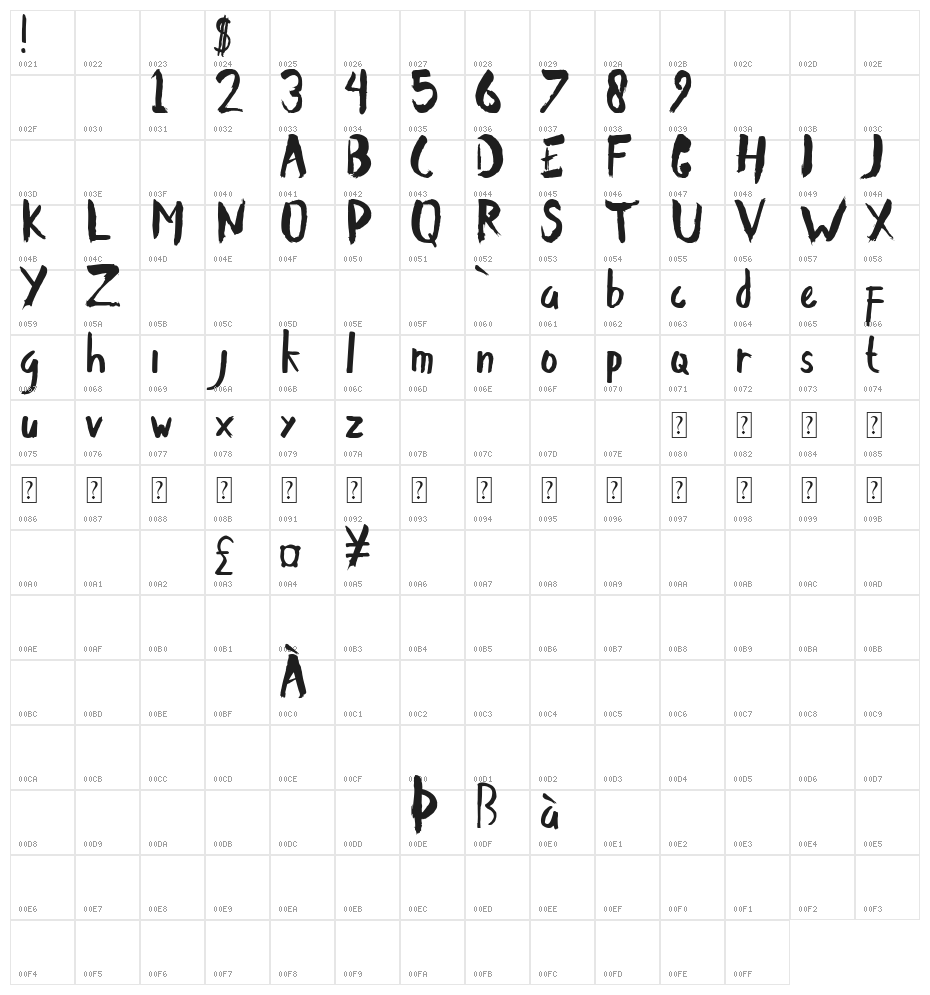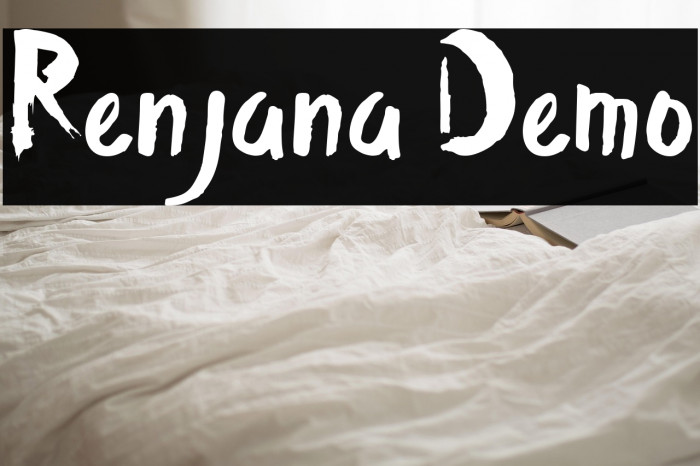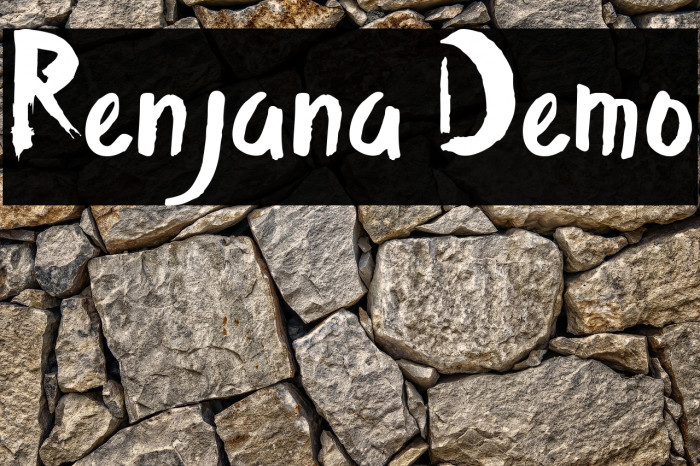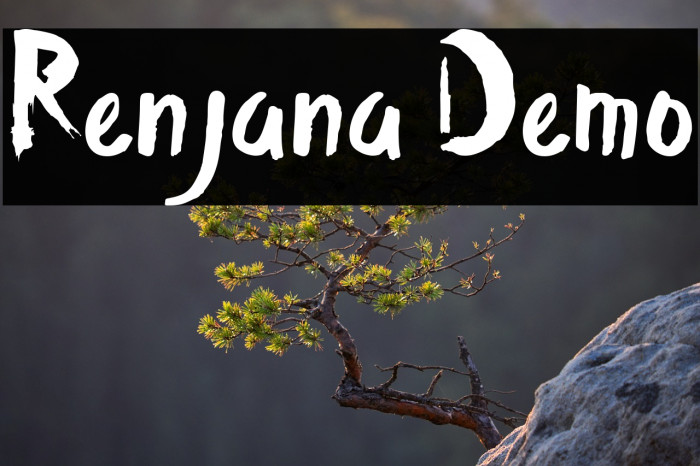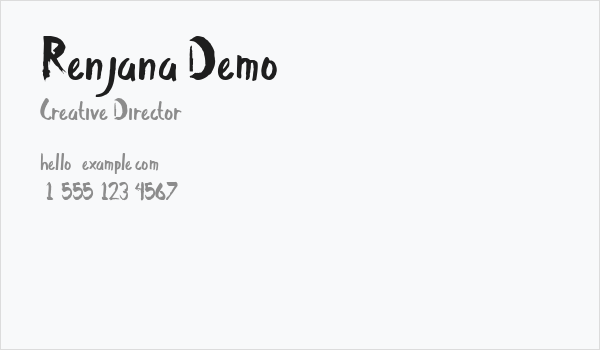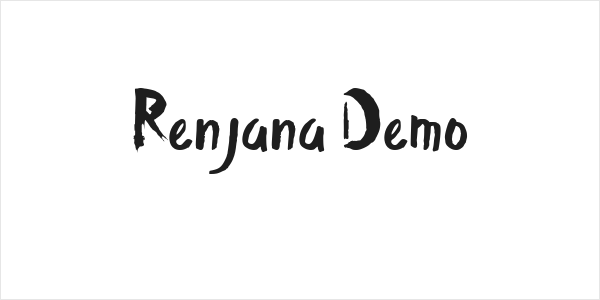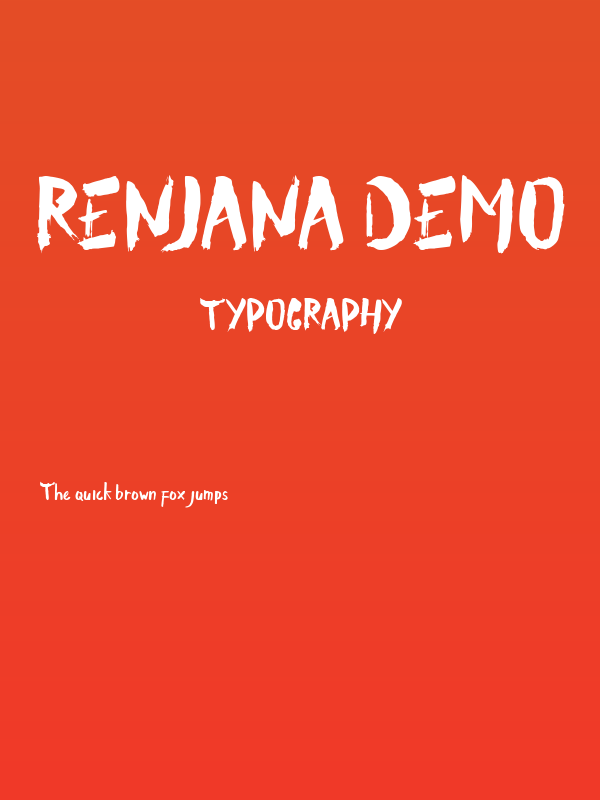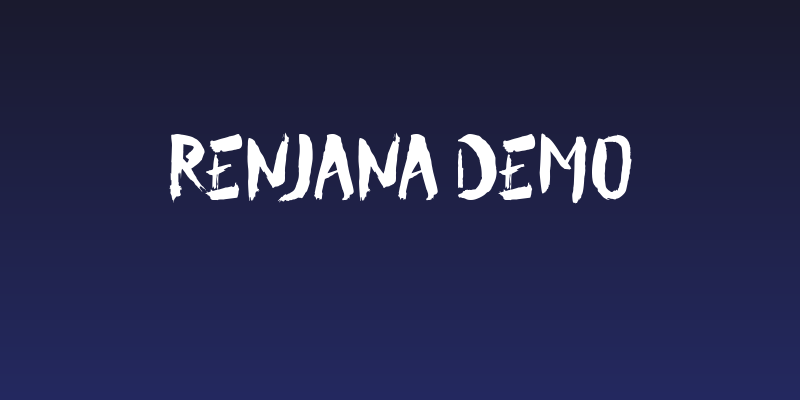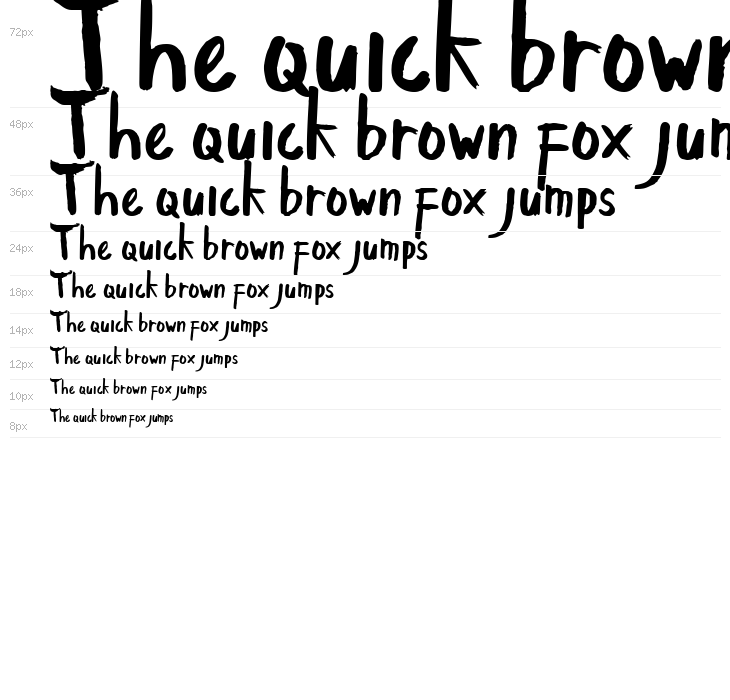
Renjana Demo Font
Renjana Demo Description
This font exudes a bold and expressive style, characterized by its brush-like strokes and dynamic appearance. The letters have an organic, hand-drawn quality, with varying thicknesses that add a sense of movement and energy. The uppercase letters are particularly striking, with sharp angles and a slightly irregular form that enhances the font's artistic flair. The lowercase letters maintain this energetic style, offering a cohesive look across the alphabet. Numbers and special characters are equally bold, ensuring consistency throughout. This font's unique style makes it stand out, perfect for projects that require a personal touch or a creative edge.